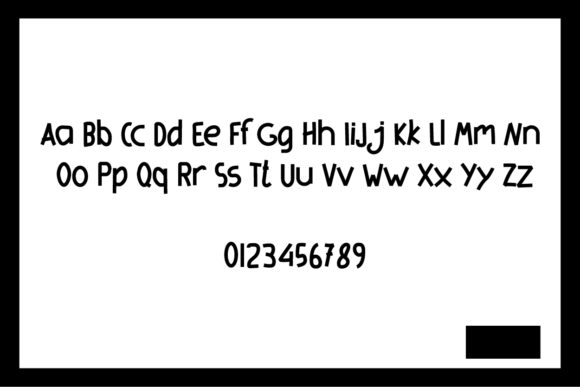
Unleashing the Playful Side of Design
Have you ever been brainstorming a new project and suddenly, a burst of creativity strikes? You envision a whimsical logo, a playful title, or a childlike illustration that transports your audience to a world of wonder. This is exactly what happens when the right font meets your design vision.
Meet Kids Font, a simple and quirky handwritten font designed to bring a touch of friendliness to your creations. With its clean lines and charming personality, Kids Font is perfect for designers seeking to add a playful twist to their projects. Whether you’re working on a children’s book, a family brand, or a product that appeals to a younger demographic, Kids Font is a valuable addition to your design toolkit.
By incorporating Kids Font into your designs, you can tap into the universal language of playfulness and approachability. This versatile font is sure to delight both kids and adults alike, making it an ideal choice for designers looking to create engaging and memorable experiences.
Kids Font Key Features
- Unique Characteristics: The font features a playful, child-friendly design with rounded edges and bold lines, making it ideal for educational materials, children’s books, and other youth-focused content.
Kids Font Review
Overall, I think Kids Font has some great features, but it’s not without its limitations. Let’s dive in.
- The font’s playful and colorful design makes it perfect for kids’ educational materials, like workbooks and posters.
- The font is highly customizable, allowing you to adjust the size, color, and spacing to suit your needs.
- The font includes a range of fun and creative characters, such as animals and emojis, that can add an extra layer of engagement to your content.
- The font may not be suitable for formal or professional applications, as it’s quite casual and playful.
- The font’s customizability can also be a double-edged sword, as it can be overwhelming to adjust all the settings to get the desired look.
- The font’s character set is not as extensive as some other fonts, which may limit its use in certain contexts.
Overall, I think Kids Font is a solid choice for designers working on projects that require a playful and engaging font. While it may not be the best fit for every project, it’s definitely worth considering for the right applications.
Some popular use cases for Kids Font include:
- Children’s book covers and illustrations
- Education and learning materials
Remember to have fun and be creative when using Kids Font!